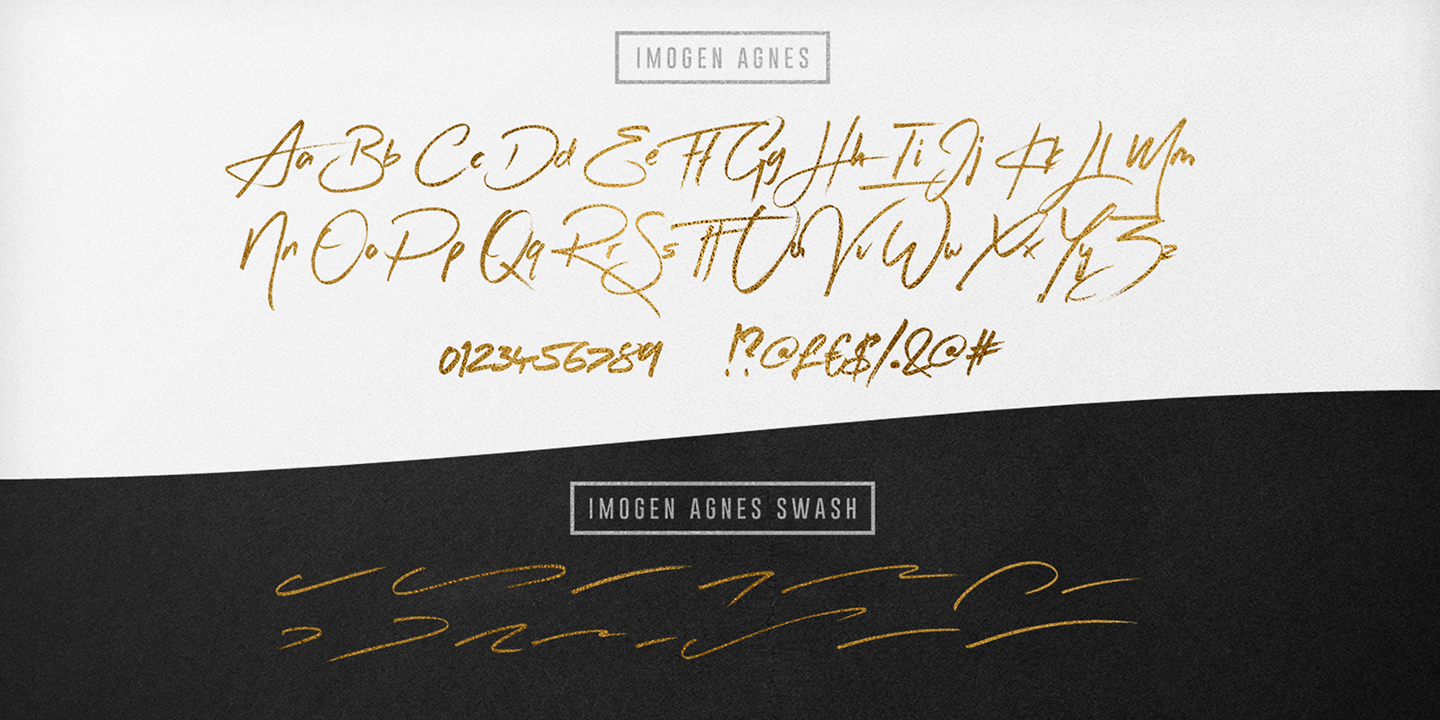
About the Imogen Agnes Font
About Imogen Agnes Font Family Imogen Agnes is a hand-made, signature-style font designed to create personal, stylish lettering quickly & easily, A bit of background; During my years as a freelance designer, I had always been a huge fan of signature-style fonts but frustratingly found them few and far between, Now don’t get me wrong – some of them are visually stunning
But I found them almost too perfect, or too digitised, to make you think that someone had quickly scribbled it down on paper, So that’s why I created Imogen Agnes, It works great for personal logos, but also makes for a strong standalone script font with a bit of a retro vibe to it
It comes with upper & lowercase characters, numerals, punctuation and supports international languages, It also comes with a bonus set of 15 swashes just to add that extra touch of finesse to your text, Stylistic alternates for several key lower case characters are also available, accessible in the Adobe Illustrator Glyphs panel, or under Stylistic Alternates in the Adobe Photoshop OpenType menu